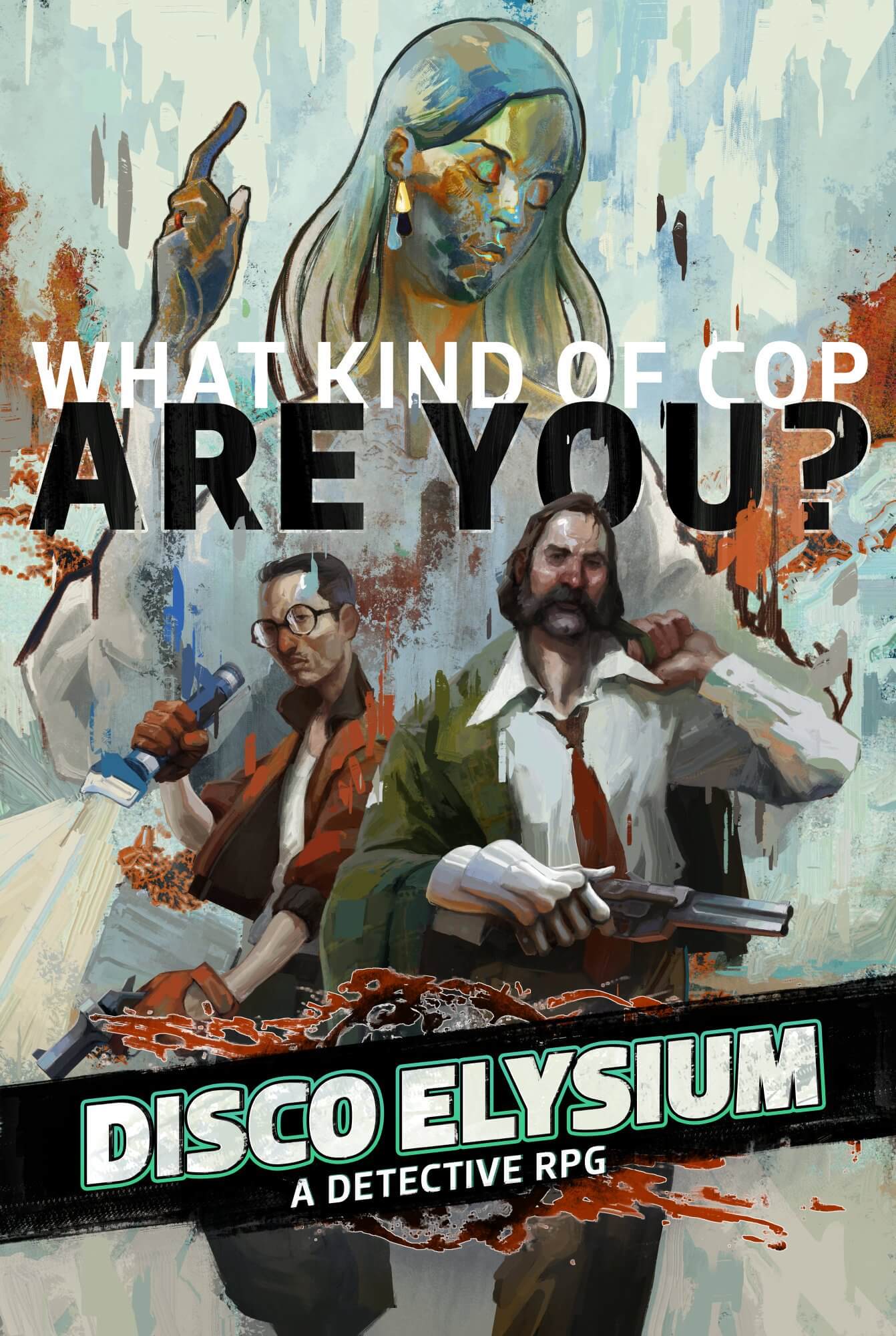
Disco Elysium Font
Fonts in UseDisco Elysium is a narrative-driven role-playing video game that takes place in a fictional city called Revachol. The game features an isometric perspective and focuses on solving a murder mystery while exploring the various characters and political ideologies of the world.
The featured artwork showcases a variety of Dobra font weights and styles, and the game logo is created using the Dobra Black Italic. Dobra is a sturdy, geometric sans serif font family developed by DSType.